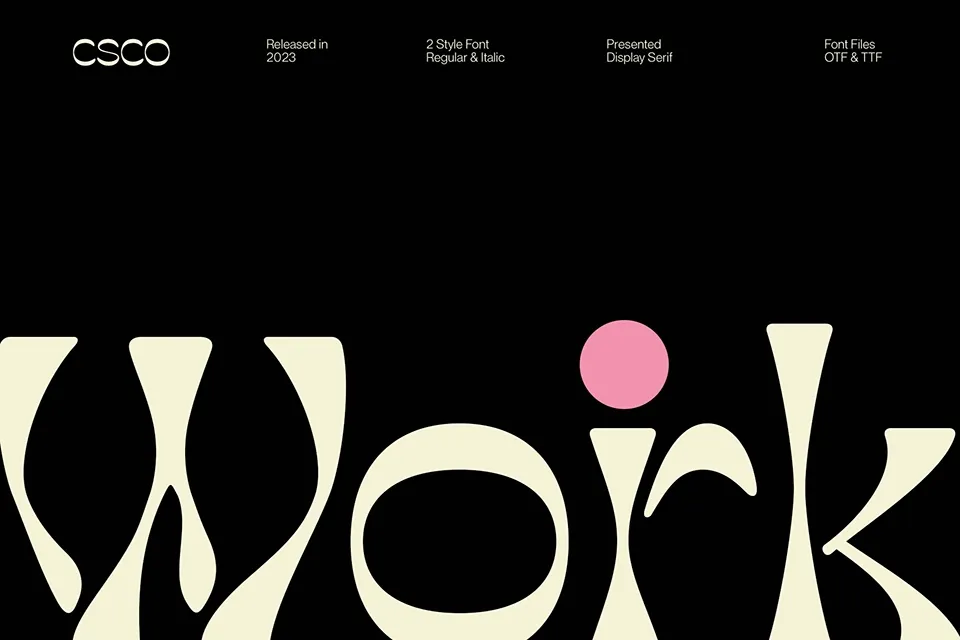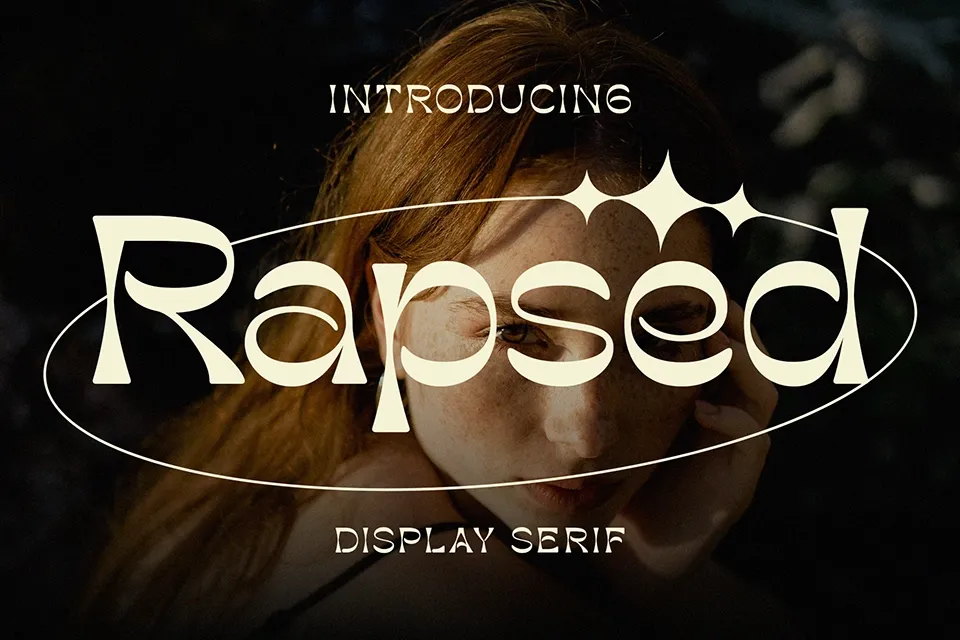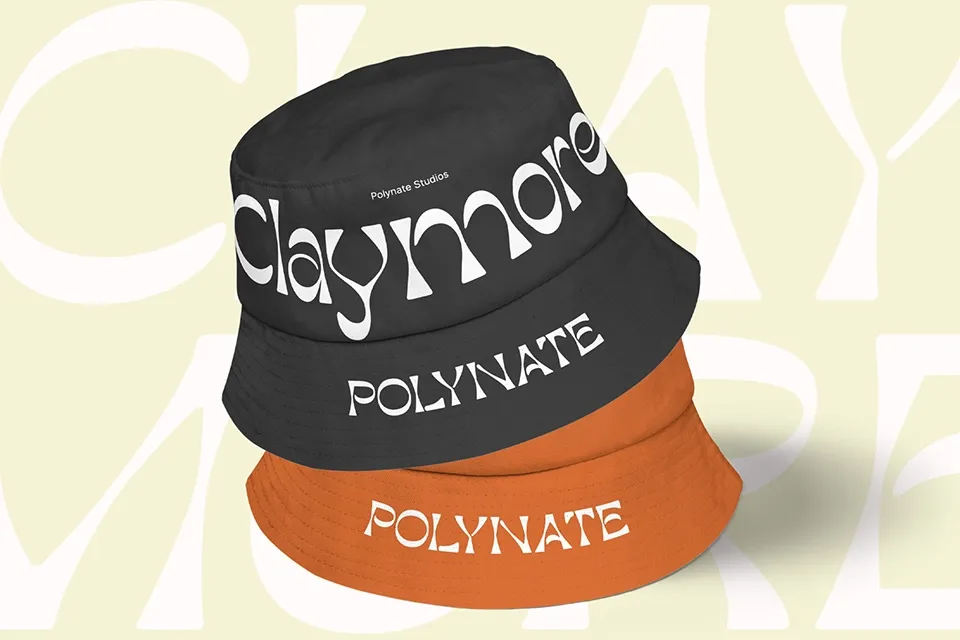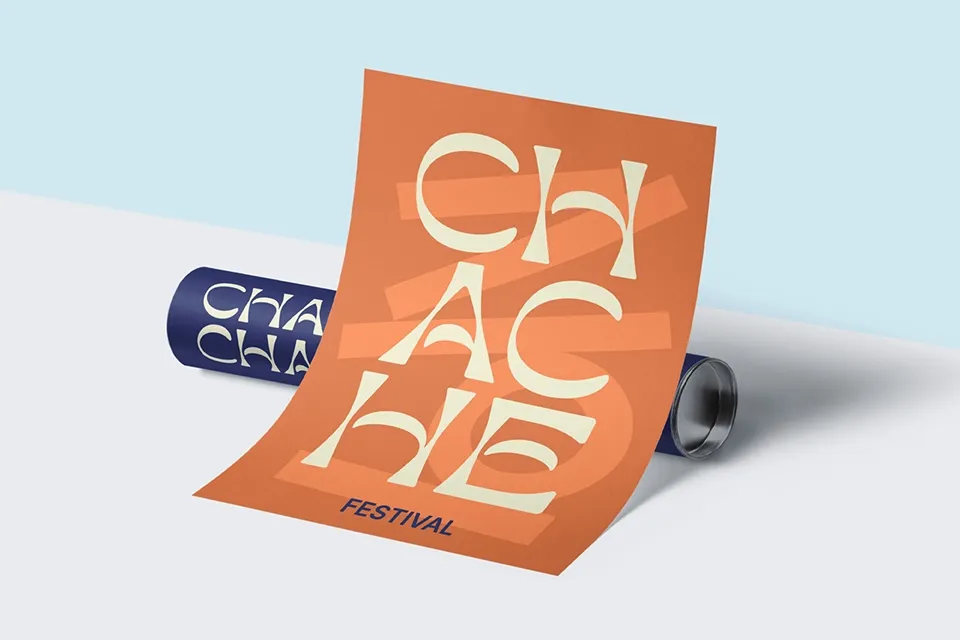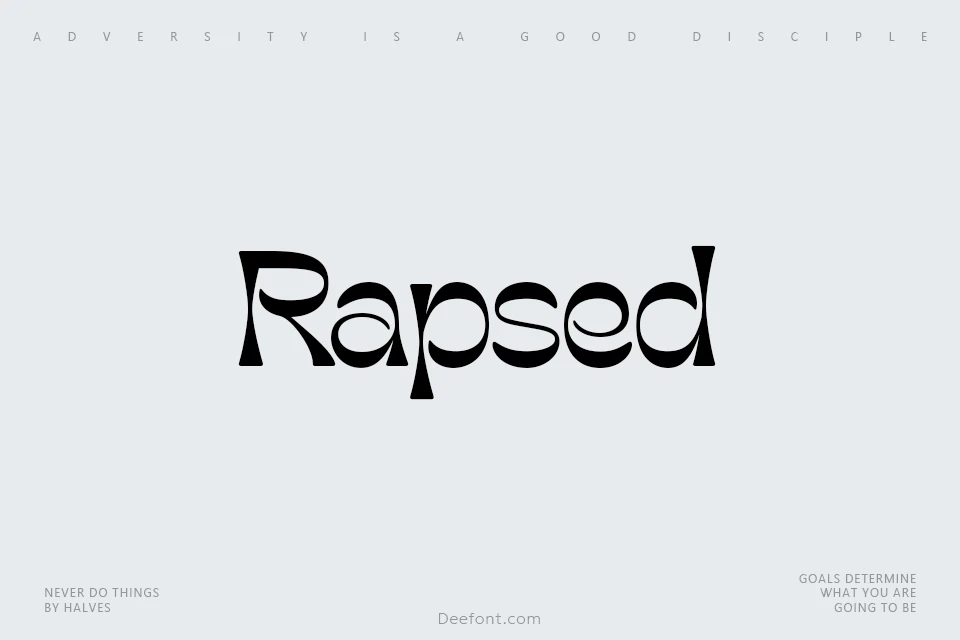
Rapsed Font
Rapsed Font is a bold and artistic display serif typeface designed to stand out with its unique, fluid letterforms. Released in 2023, this font blends modern aesthetics with an organic, playful touch, making it perfect for creative projects like branding, posters, headlines, and packaging. Rapsed Font comes in two versatile styles—Regular and Italic—allowing for dynamic design possibilities. Its striking curves and distinctive shapes lend a sense of movement and creativity, ideal for designs that demand attention. Available in both OTF and TTF formats, Rapsed Font is a versatile choice for designers looking to add personality and flair to their work.